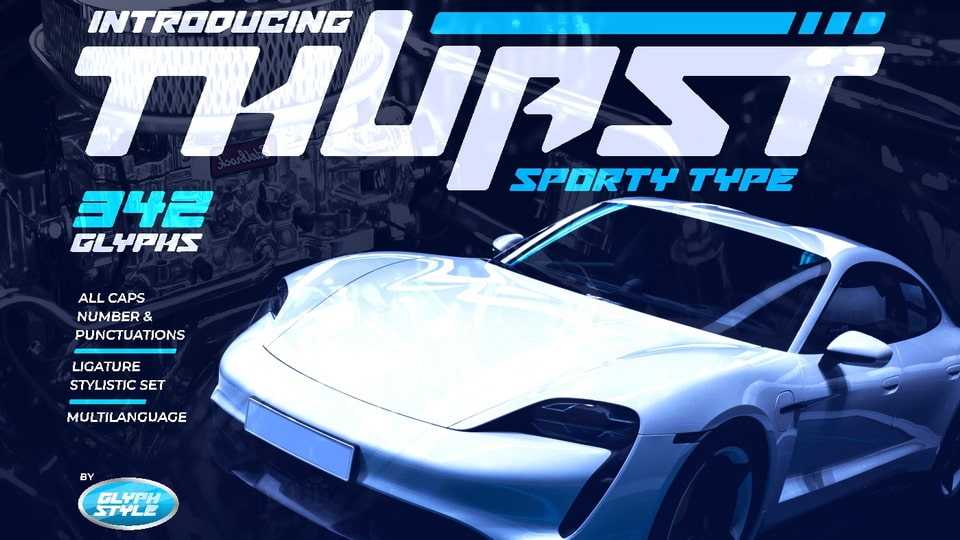
Download Thuast font, a sports and speed themed display font. The letters in bold and italics describe speed. Equipped with stylistic options to enrich your creativity.